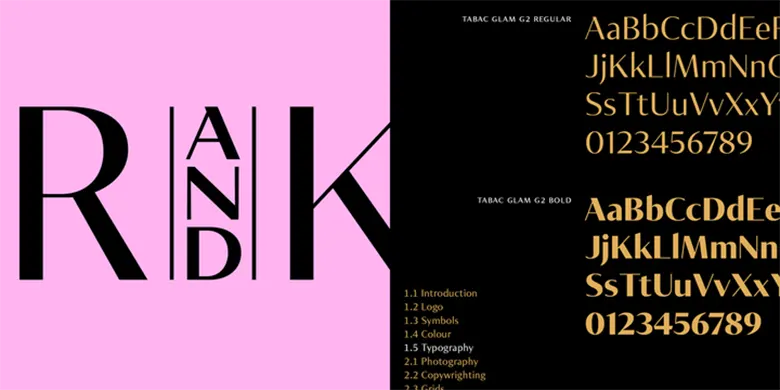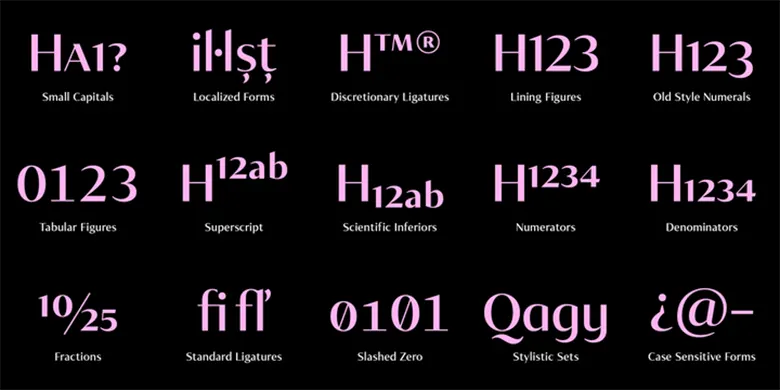
Tabac Glam Font
Tabac Glam is a modern sans-serif font designed for bold display use in magazines and digital projects. It works best when paired with other styles from the Tabac superfamily, like Sans, Slab, or Mono. With 112 styles, it offers plenty of options for both elegant and technical designs.
Large sizes make this font truly shine, especially on glossy magazine covers or bright digital screens. Its clean, modern look makes it perfect for creating eye-catching headlines or layouts.
Designer Suitcase Type Foundry